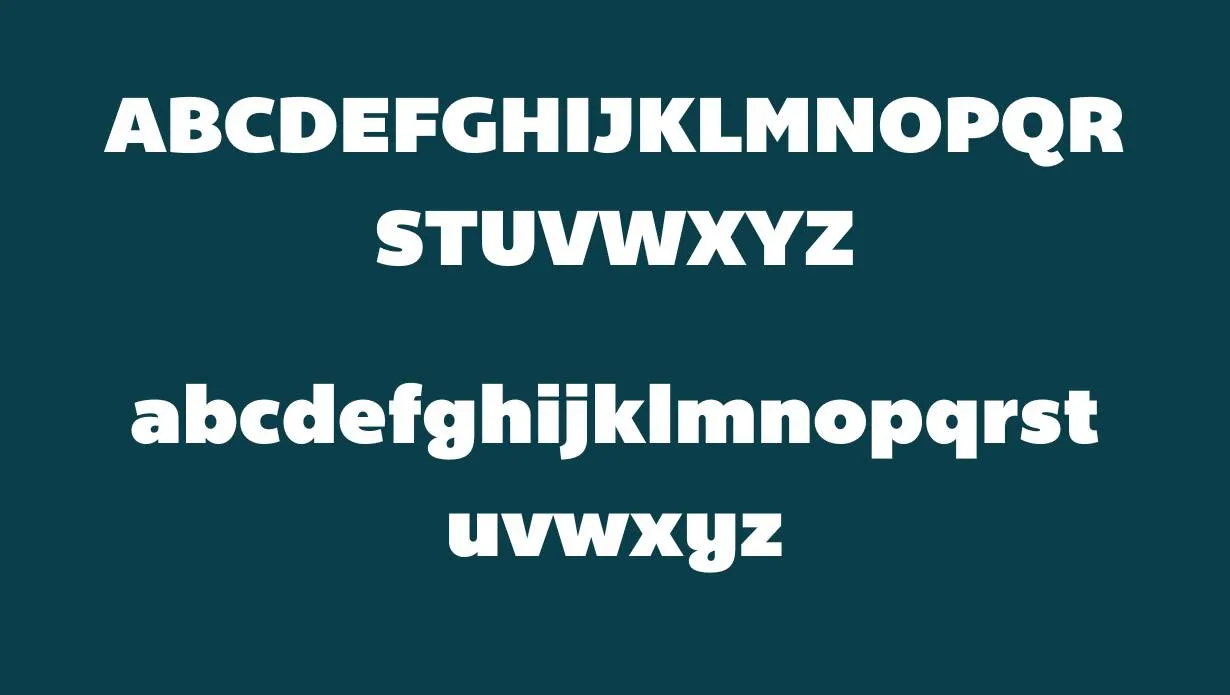
Bemio Font is a versatile typeface known for its contemporary and professional appearance. This typeface has a bold character appearance that is perfect for display projects. It belongs to the Basic Geometric Sans Serif Fonts Family.
Bemio Font Family